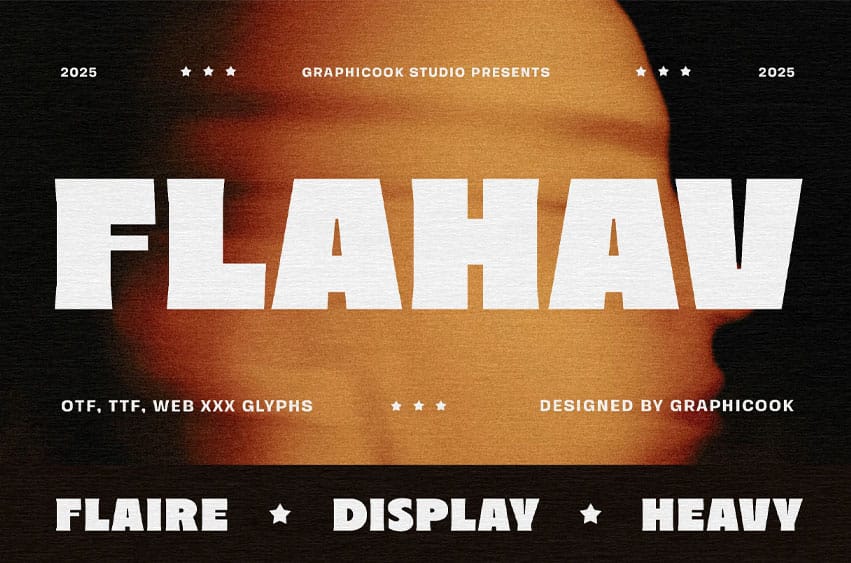
Flahav Font with a unique and eye-catching character, designed in a modern and experimental style. It’s perfect for designs that aim to be bold, striking, and full of personality.
Flahav is perfect for headlines, logotypes, magazines, packaging, quotes, movies, games, cover albums, book covers, and flyers, It’s a perfect solution for creating eye-catching designs that stand out in any context.